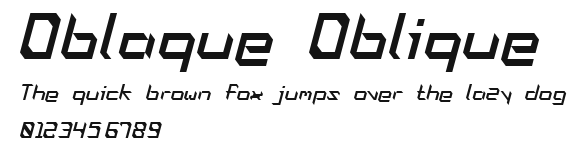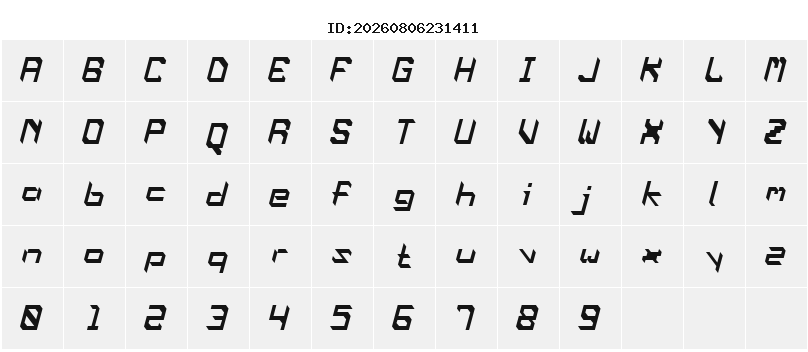
• Font Name: Oblaque Oblique
• Full Font Name: Oblaque Oblique
• Designer: Suwardiansyah
About Oblaque Oblique.ttf
Oblaque Oblique.ttf is a modern, elegant sans-serif font designed for ultimate readability and visual harmony. Perfect for branding, headlines, web design, and print materials.